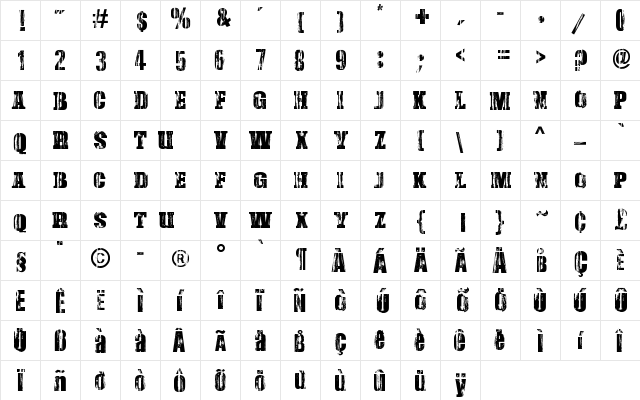
Damaged Serif Regular
| Foundry | Galdino Otten |
| Designer | Galdino Otten |
Design Context for Damaged Serif Typeface
Damaged Serif brings classic typographic sensibility to the table — its serifs and measured letterforms reflect centuries of print heritage.